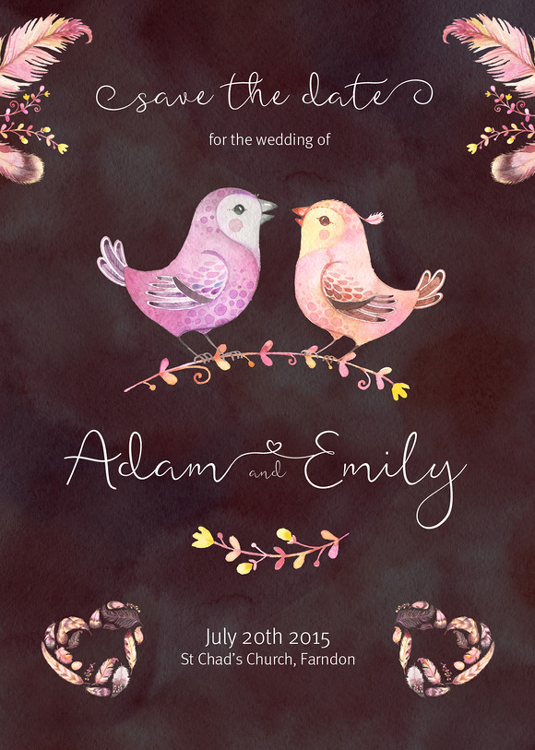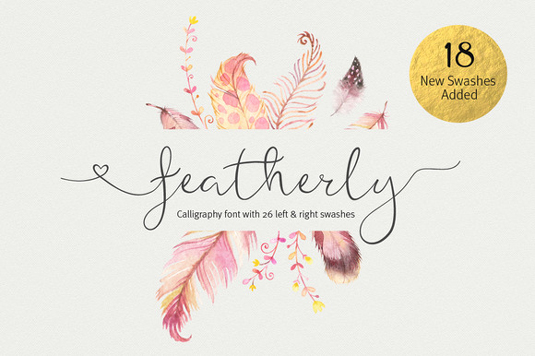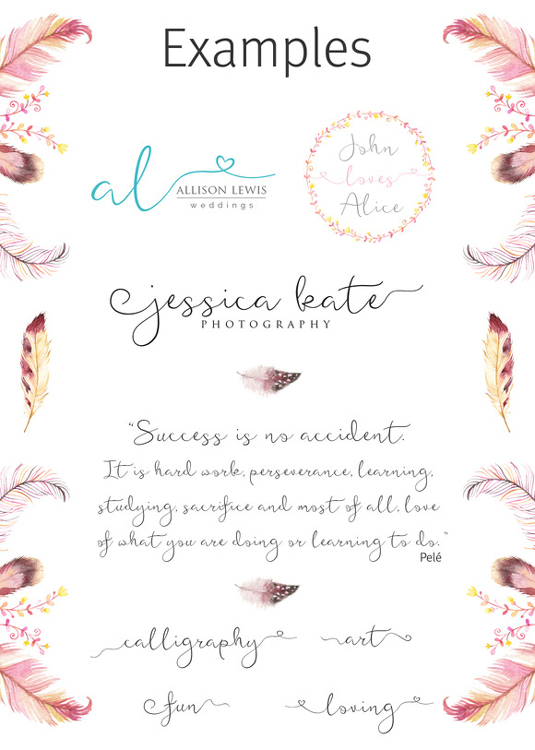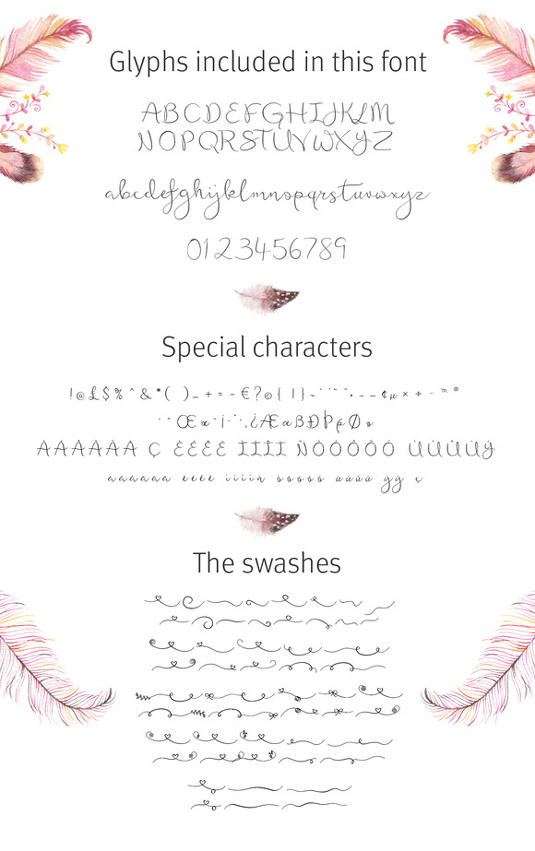
Font of the day: Featherly
Featherly by Joanne Marie
If you're planning a special day and on the hunt for a font to compliment your invitation designs, script typeface Featherly could be just the solution.
Created by designer Joanne Marie, Featherly is a handdrawn, elegant, modern calligraphic design, perfect for wedding design projects, invitations, greeting cards and much more.